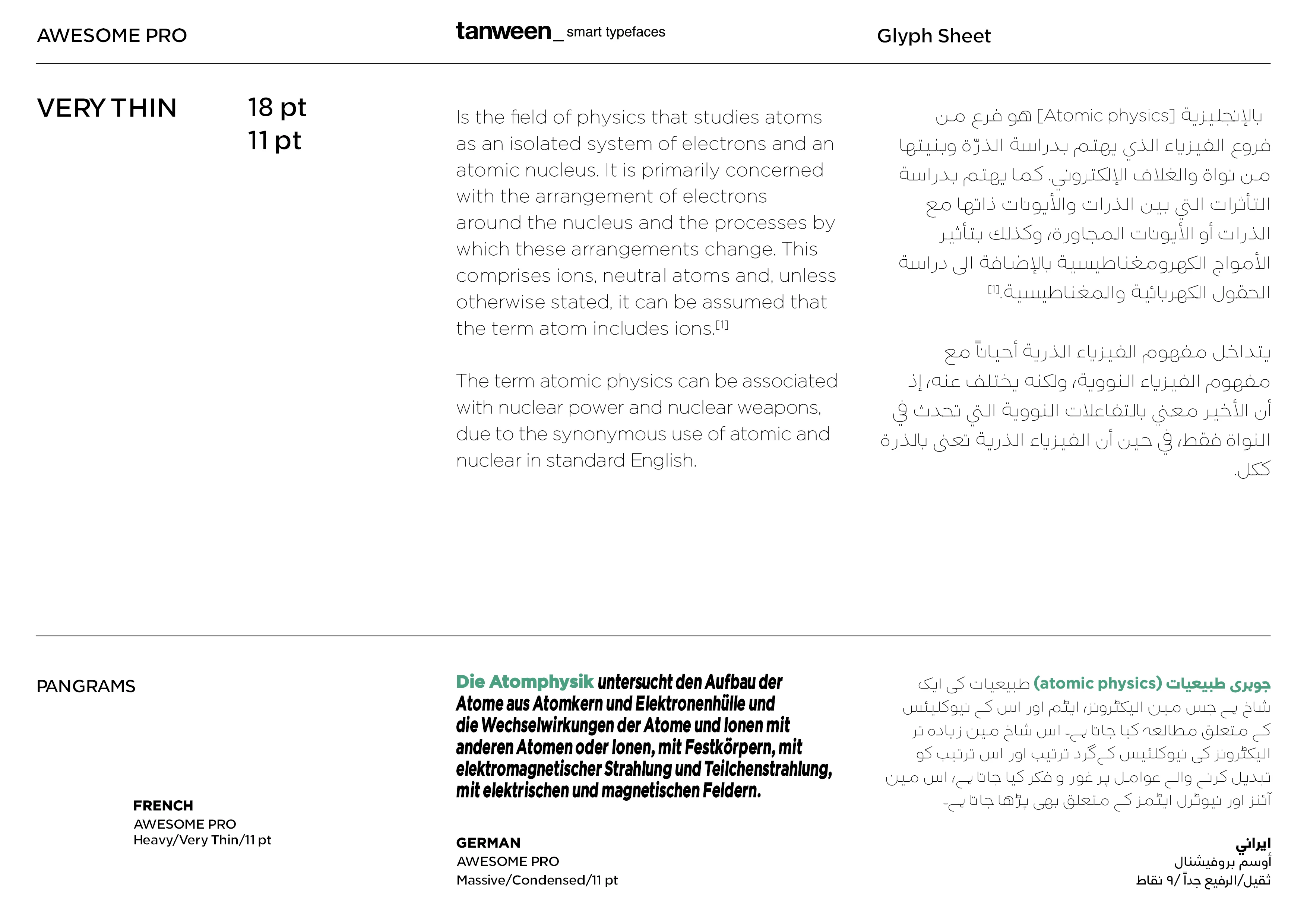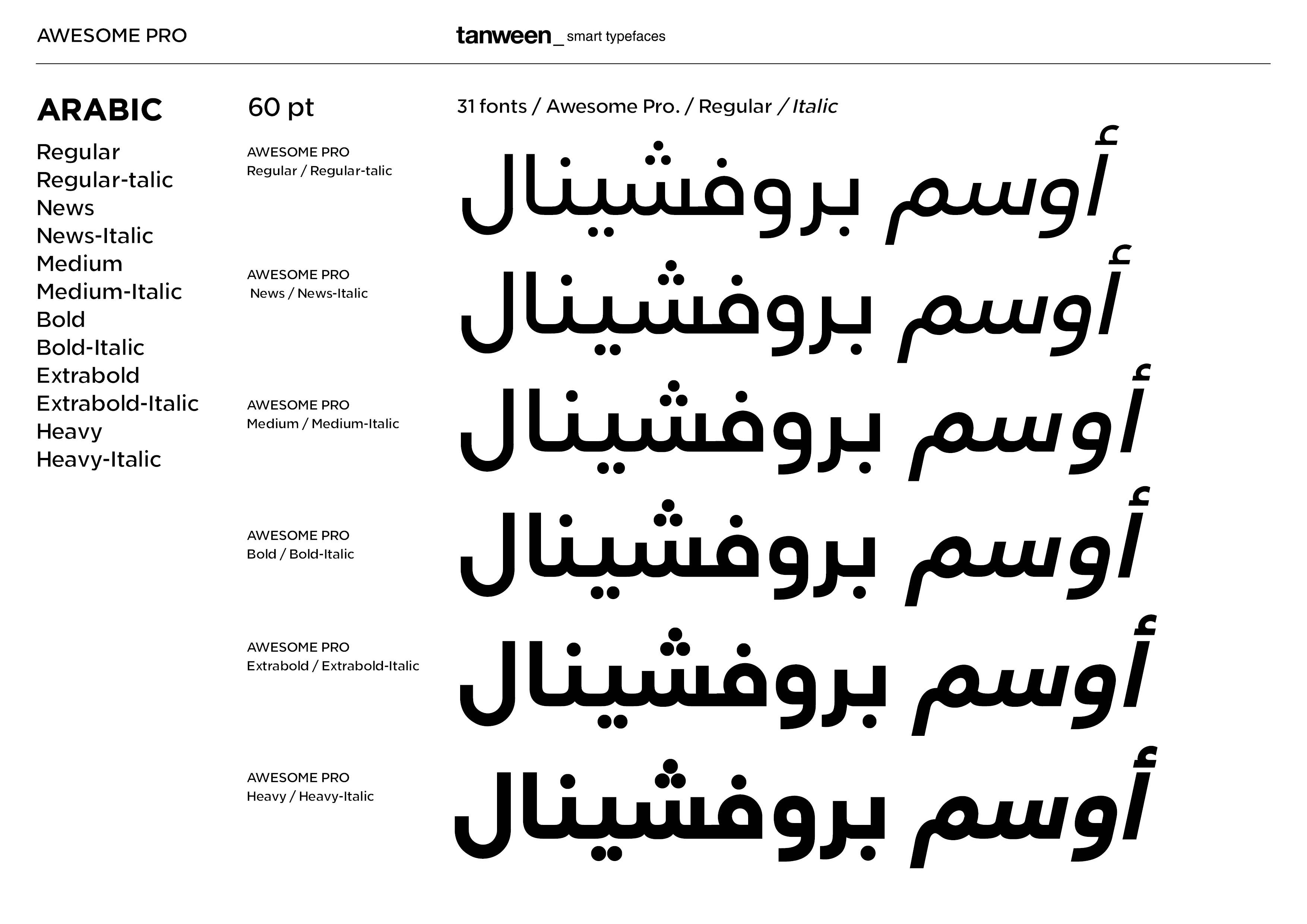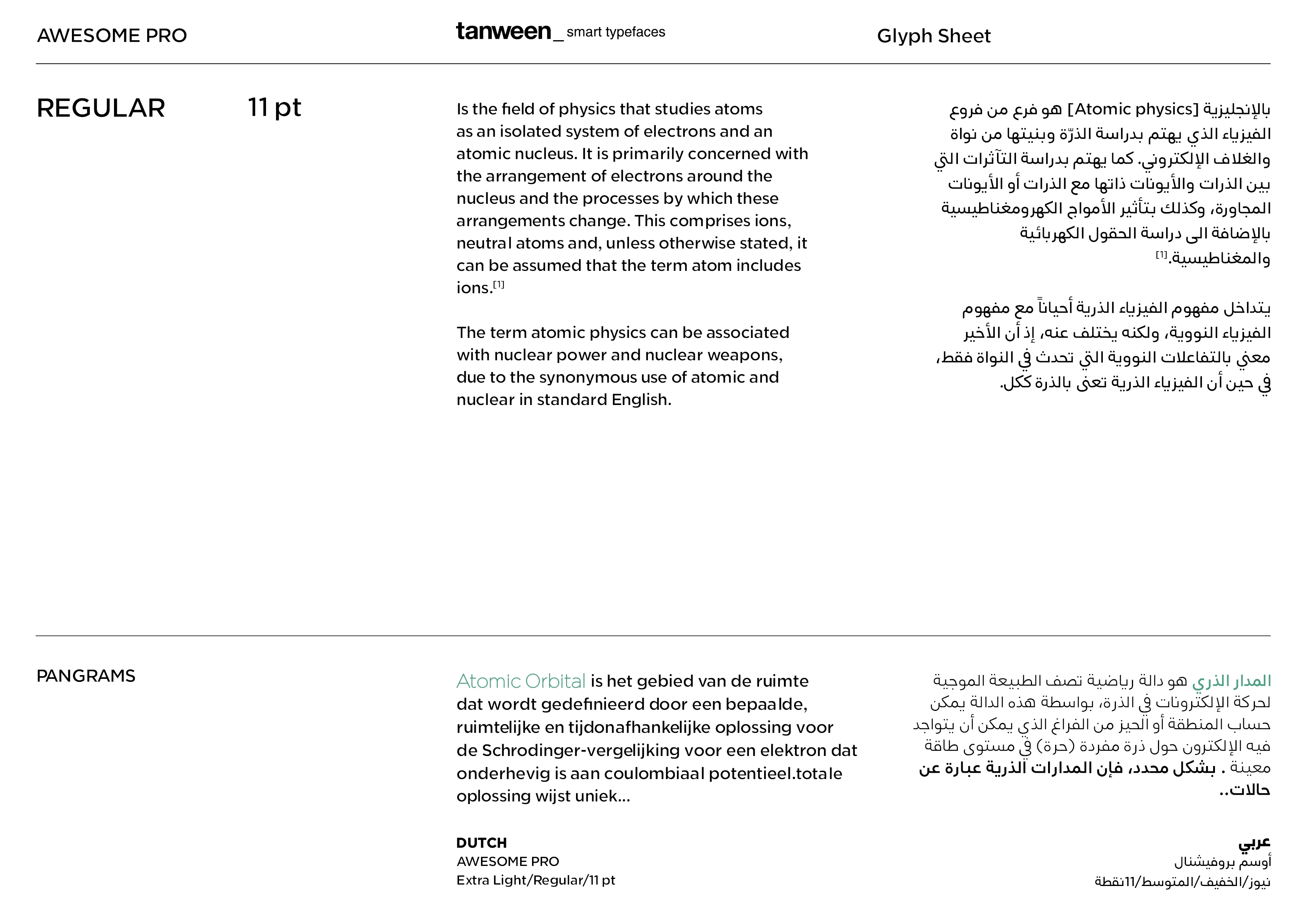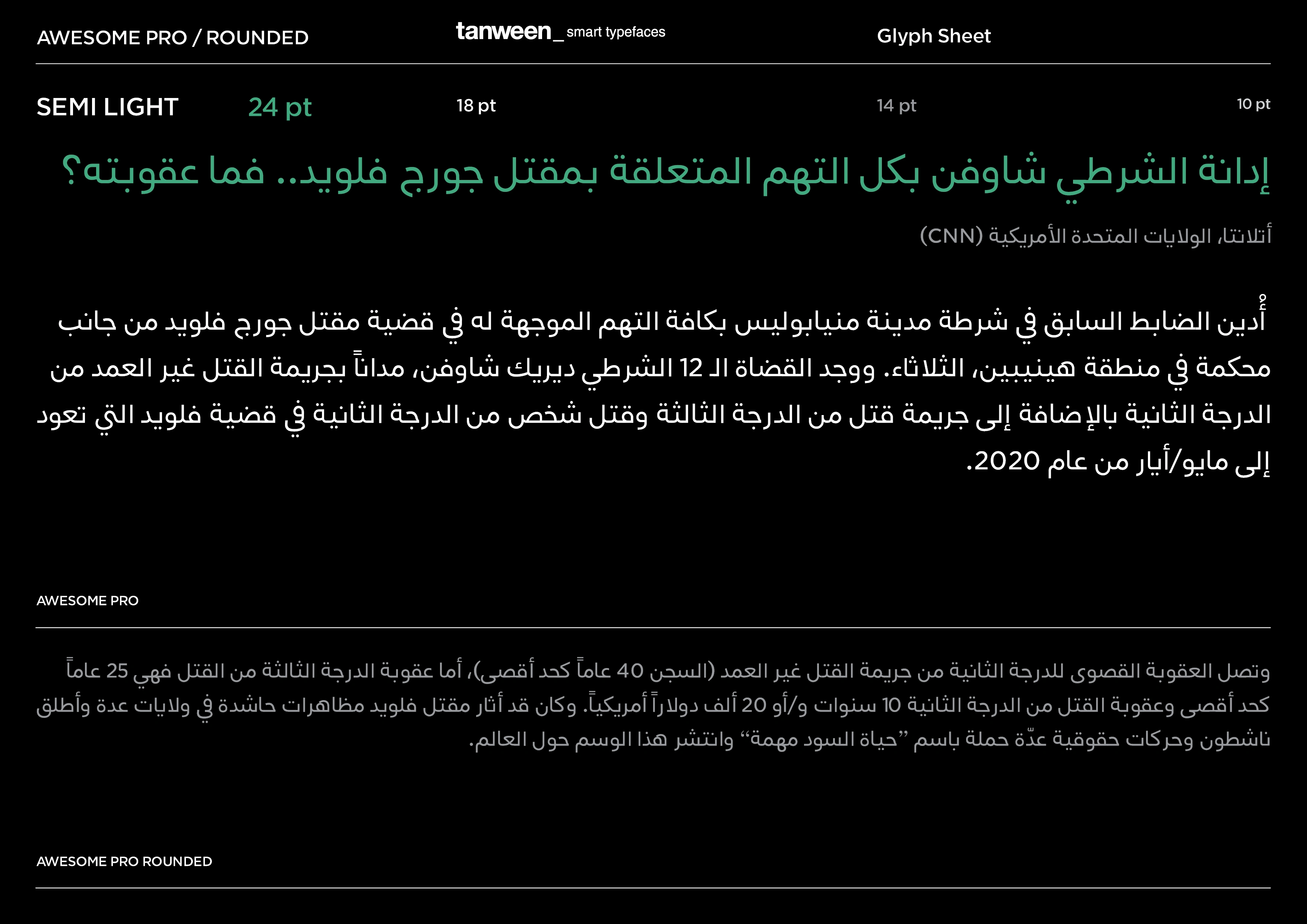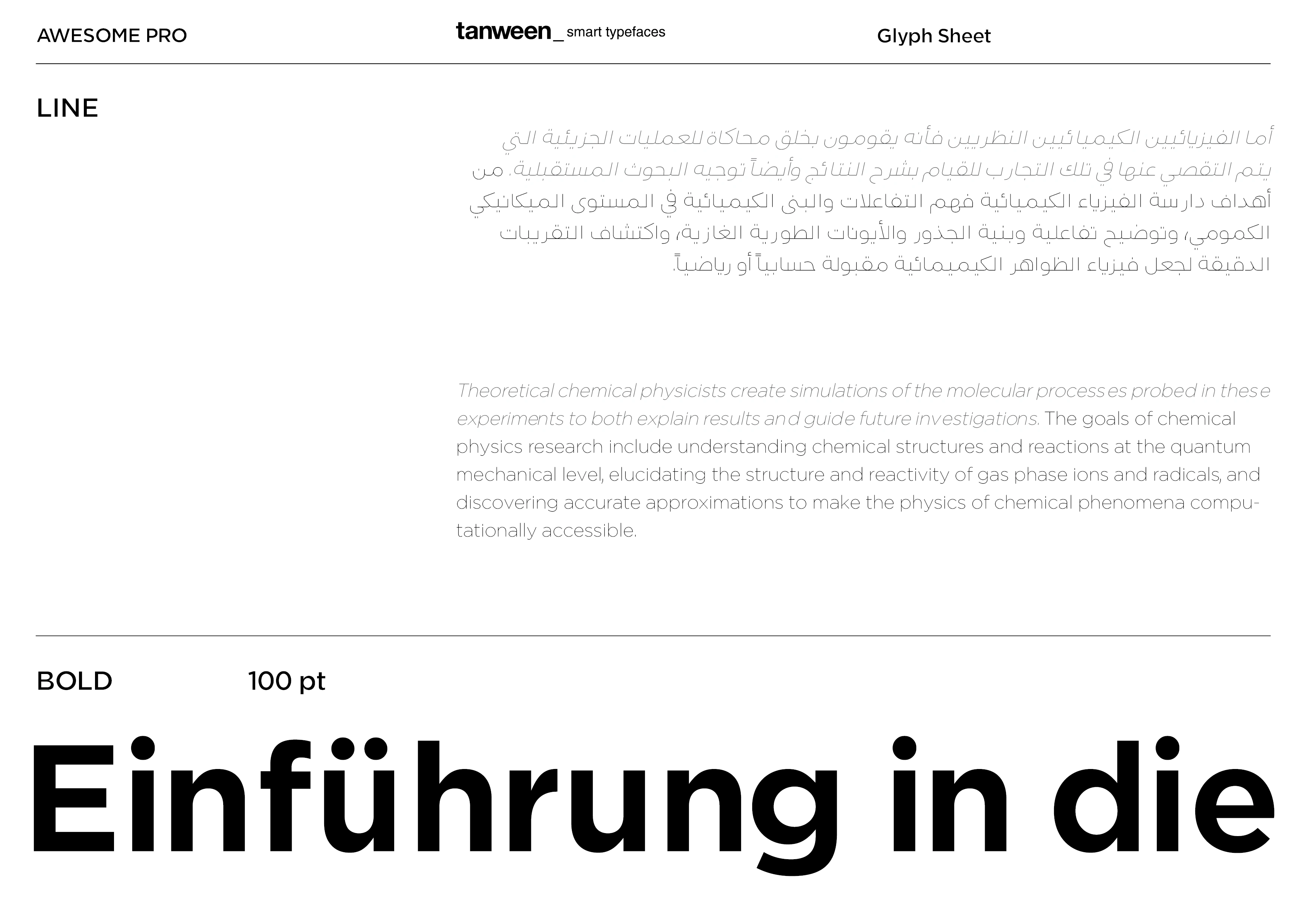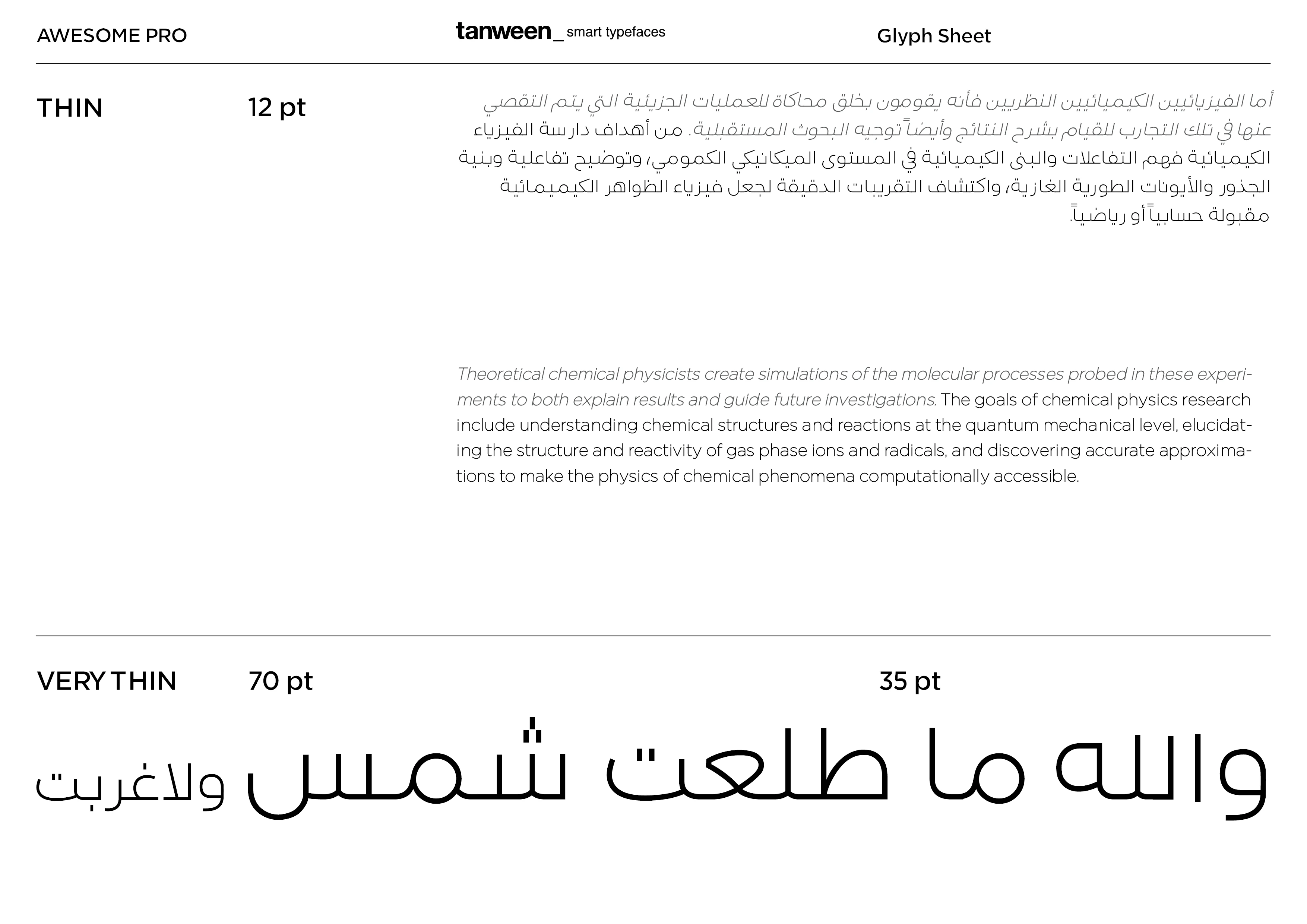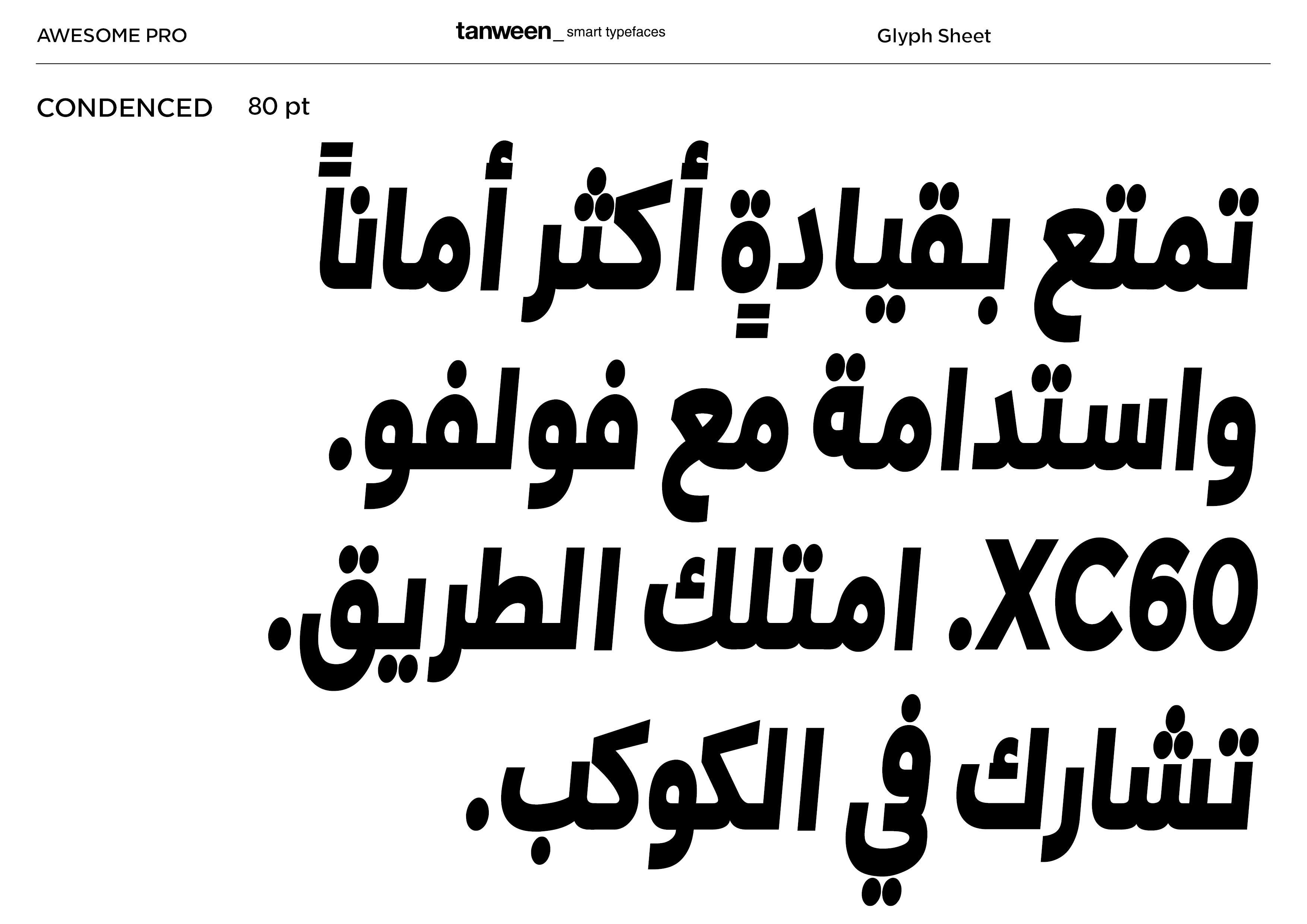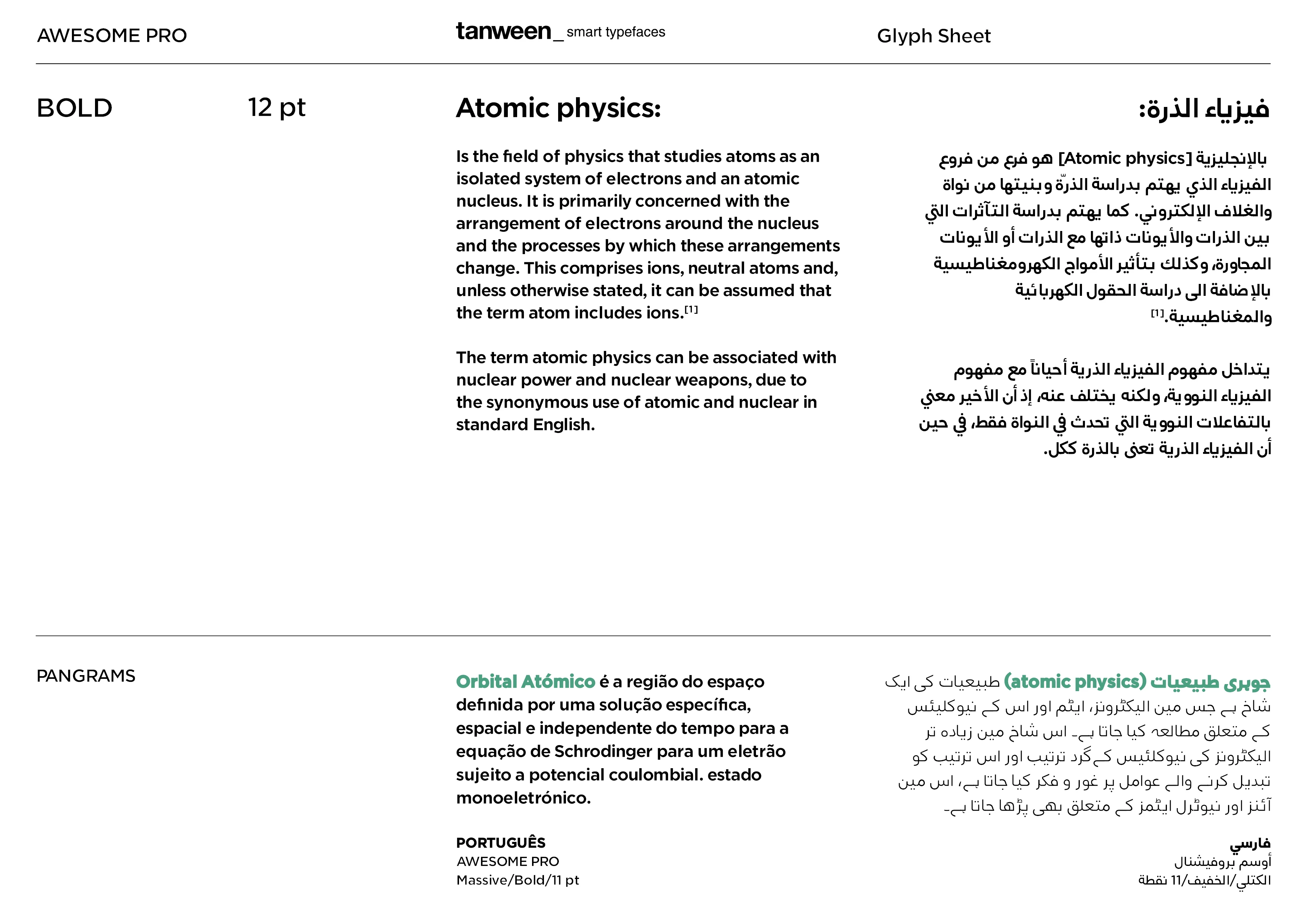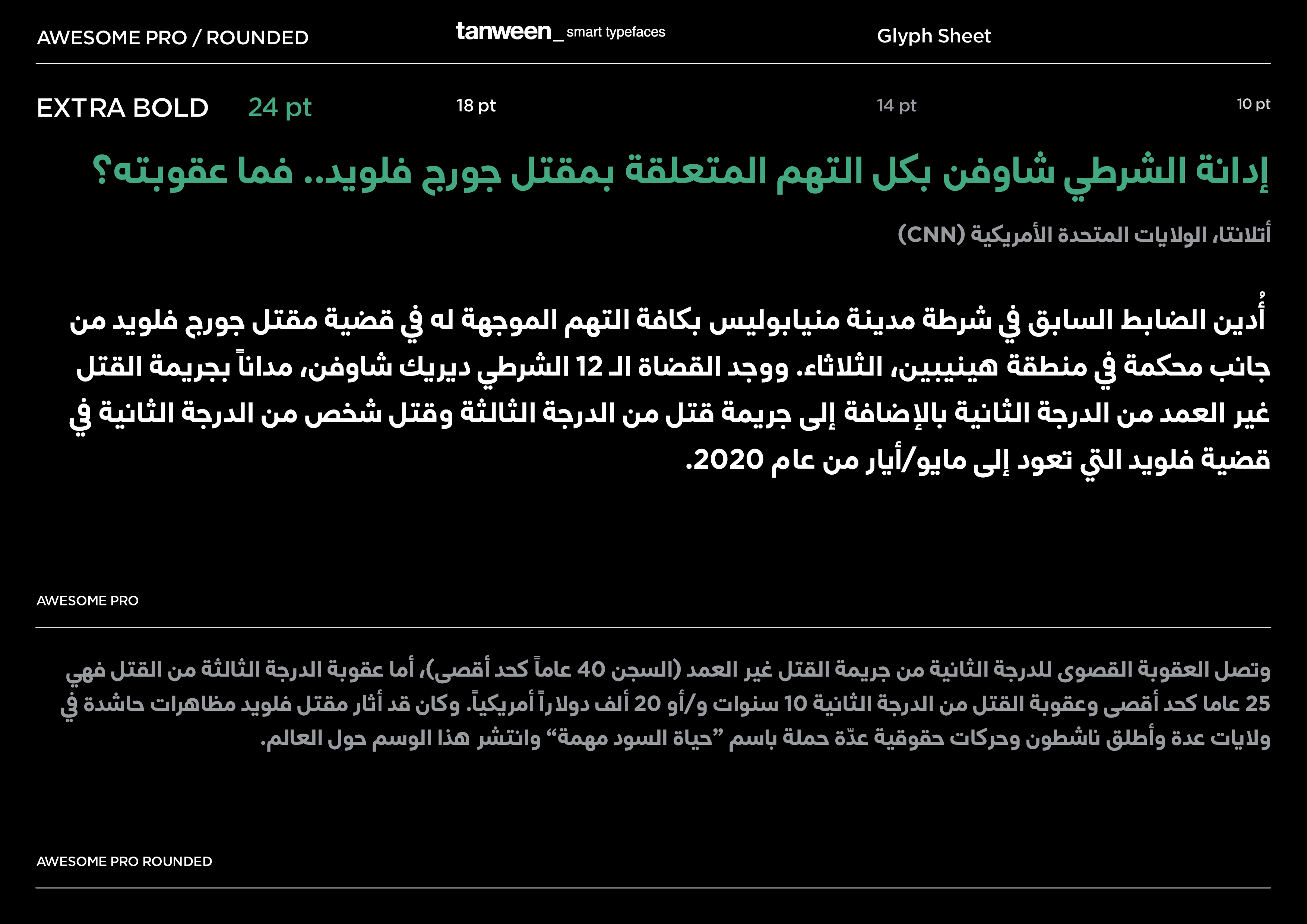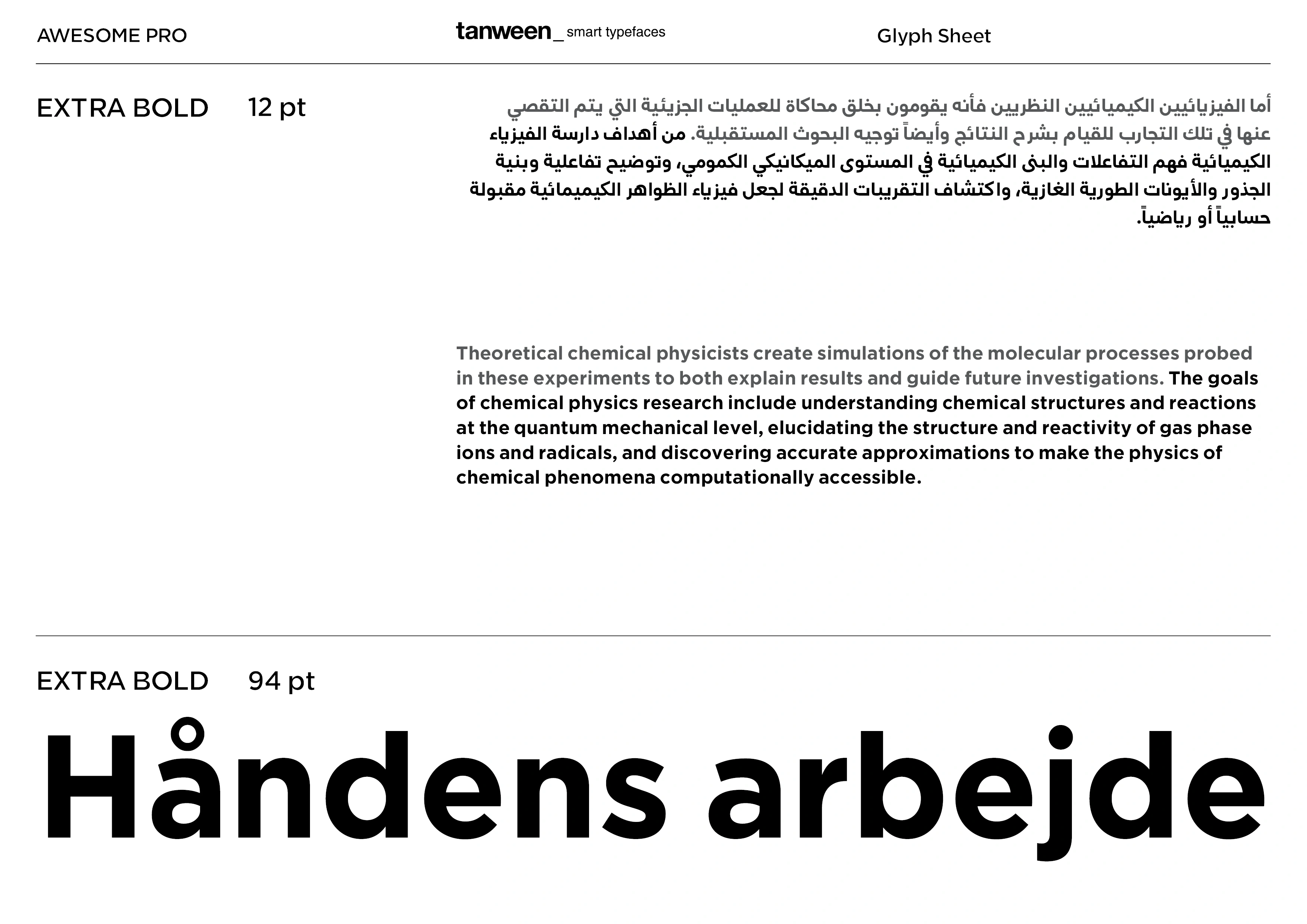
Angular typeface/ 31 weight fonts
Normal: 31 weight
Italic: 31 weight from Line to Massive
Every weight 989 glyph
Total sum = 30,659 glyph
Arabic, Urdu, Persian, and more than 120 Languages
Extracted from Gotham typeface
Very Readable in small sizes
work with branding, editorials, logos, signs, titles & text
Special Character
Basic symbols
extra symbols
mathematical symbols